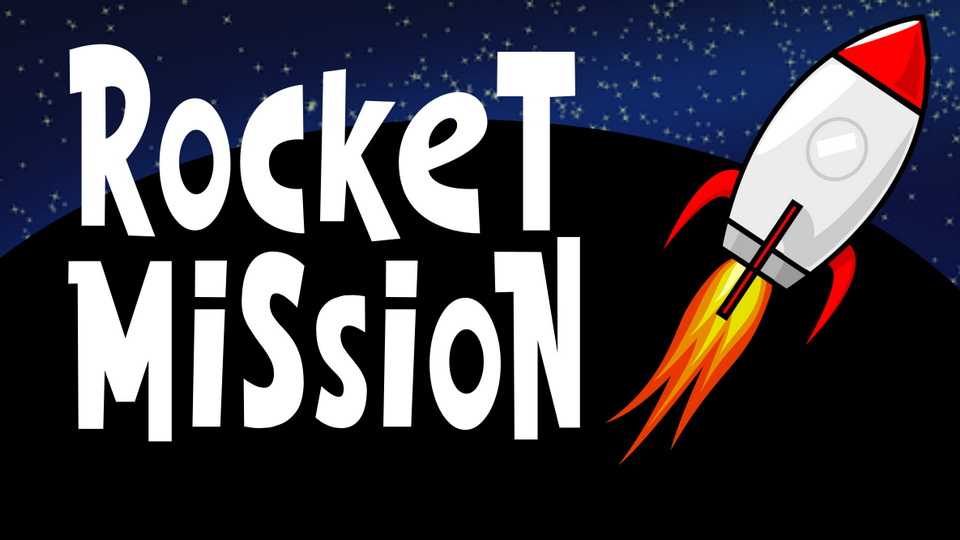
Download Rocket Mission font, a bold and fun cartoon display typeface. Rocket Mission is ideal for comics, games, kids projects, cards, t-shirts, crafts and more.